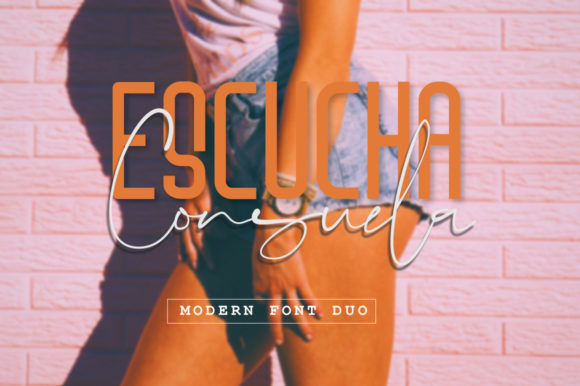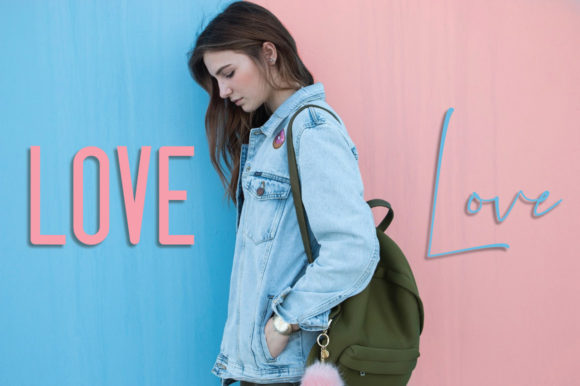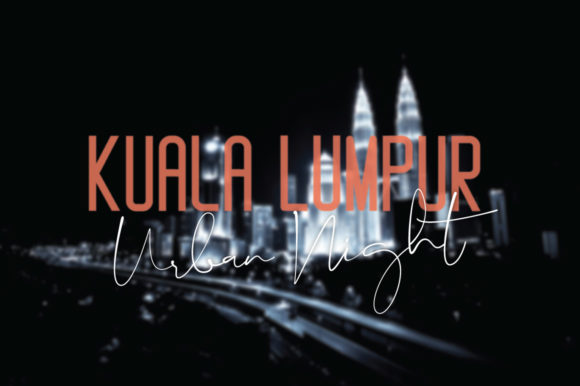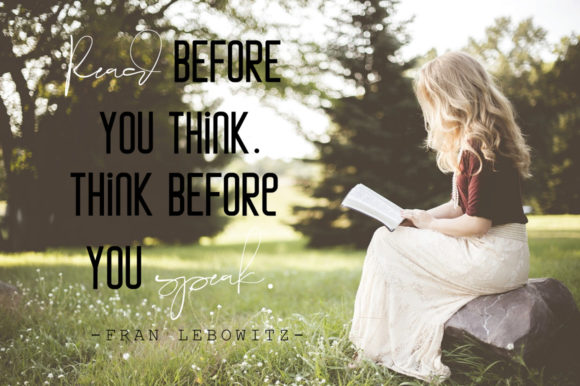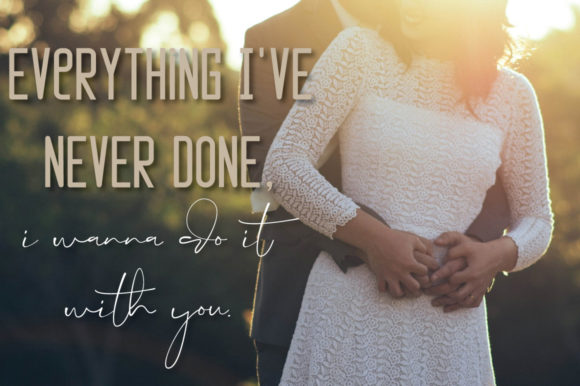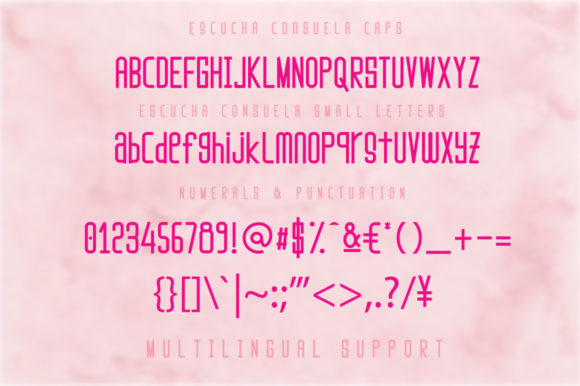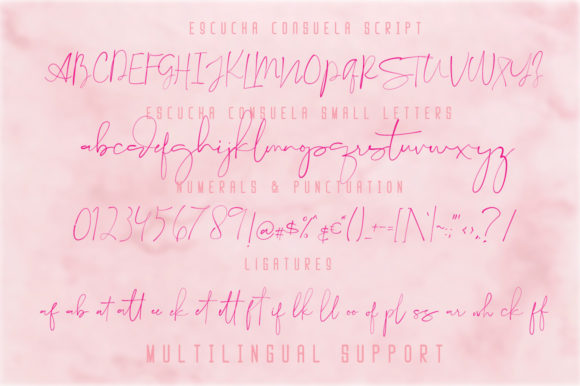
Escucha Consuela Duo Font
About Escucha Consuela Duo Font
The Escucha Consuela is a modern and stylish font duo. It comes in a script and sans version, which gives you the opportunity to create multiple unique designs with just this one duo!